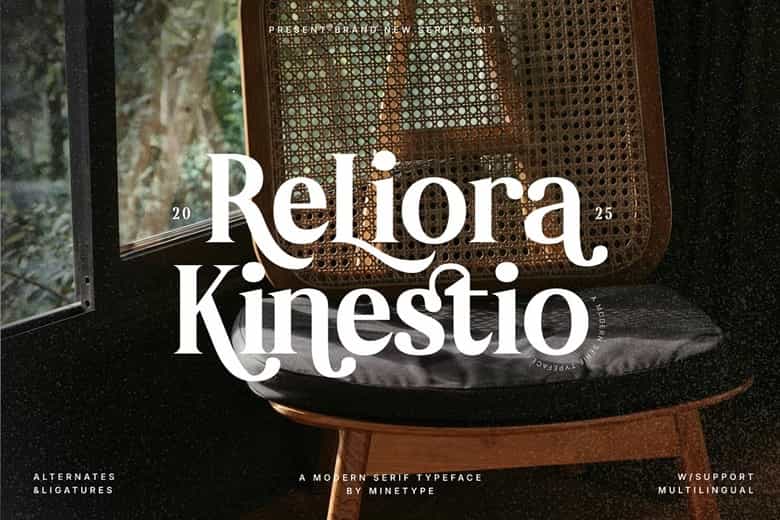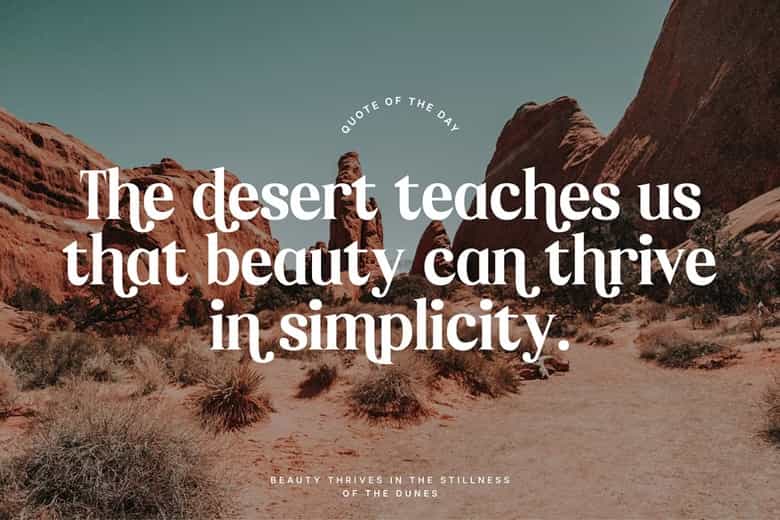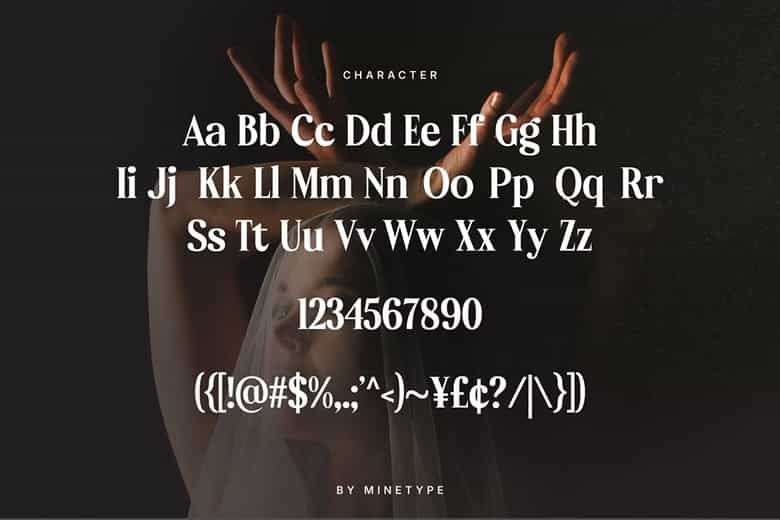
Reliora Kinestio is a modersn stylish retro serif font. It can look a bit more like the retro serif that is quite conservative; it is suitable for texts. So that ways he can be more expressive, playful and more contemporary with the alternative’s of subscript and ligature. Especially if you try to play with them and you will get the unusuality in your project.